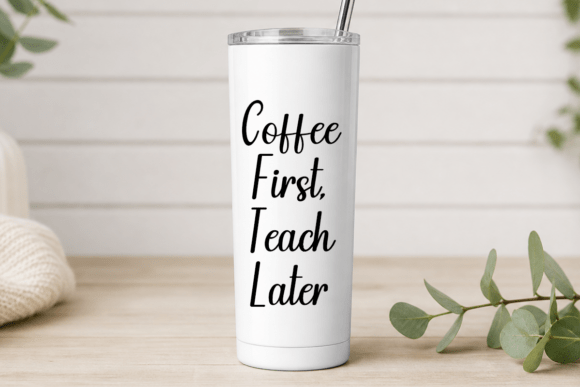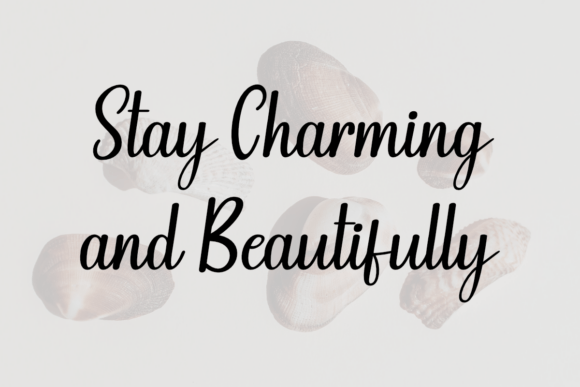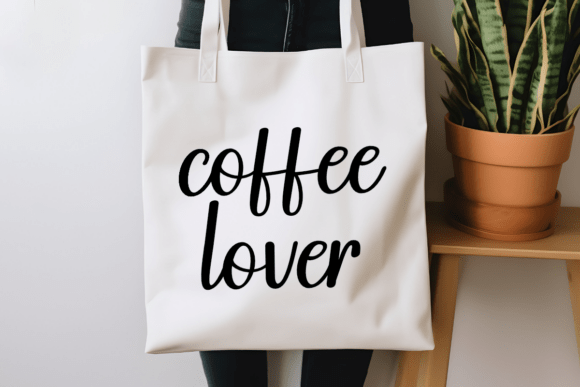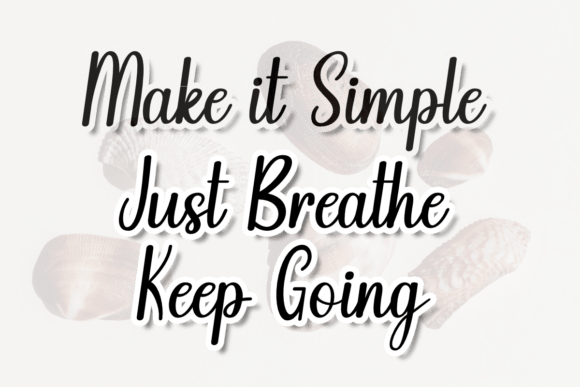
Introduction to Signature Holidays Font
Signature Holidays is a clean and beautifully handwritten font.
It looks great on a variety of design ideas and adds a sweet and friendly touch Perfect for tumblers, mugs, stickers, teacher designs, Cricut projects, quotes, and DIY crafts.